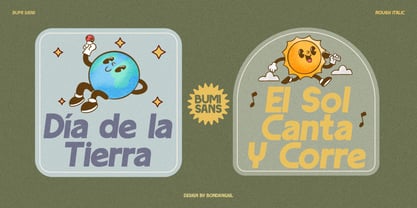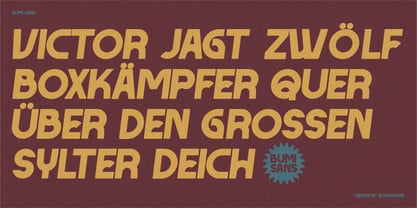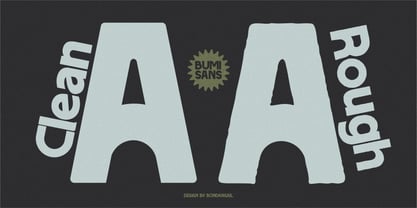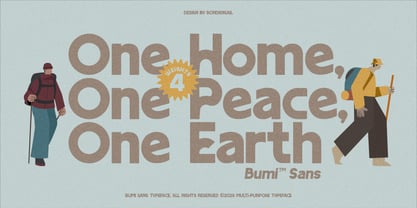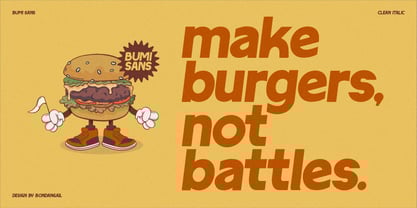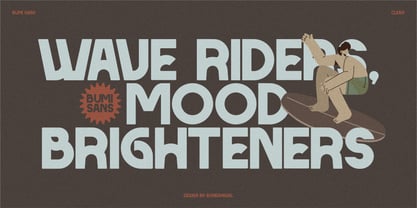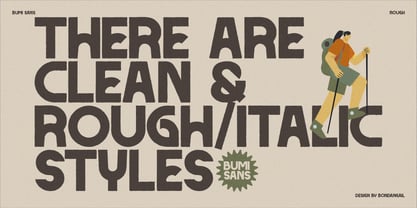
Bumi
by BondanGail
The Bumi Font Family was designed by Bondan Gail Saputro and published by BondanGail. Bumi contains 4 styles and family package options. More about this family
Bumi Sans is a bold rounded sans serif display font designed for strong visual impact and modern clarity. Built with thick, clean strokes and smooth curved terminals, it delivers a confident yet friendly personality. Its simple geometric structure ensures excellent legibility at large sizes, making it perfect for logos, branding, headlines, posters, packaging, social media graphics, and contemporary identity systems. If you're looking for a bold sans serif with rounded warmth and commercial versatility, Bumi Sans delivers power without aggression. Bumi Sans includes: • 4 weights. (Regular, Rough, Regular Italic & Rough Italic) • Uppercase, Lowercase, Numeral, Symbol and Punctuation • Works on PC & Mac • Accessible in Adobe Illustrator, Adobe Photoshop, Adobe InDesign, even work on Microsoft Word. • Image used: All photographs/pictures/vectors used in the preview are not included, they are intended for illustration purposes only.